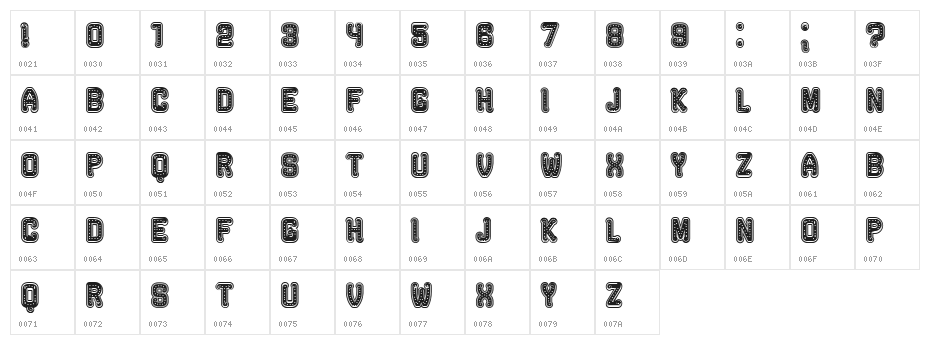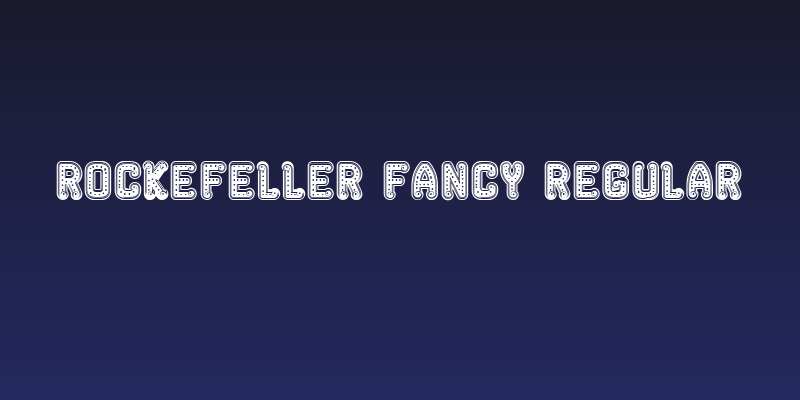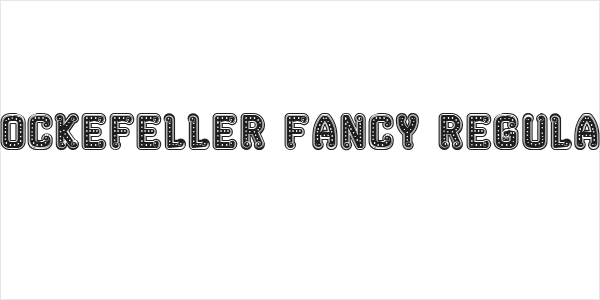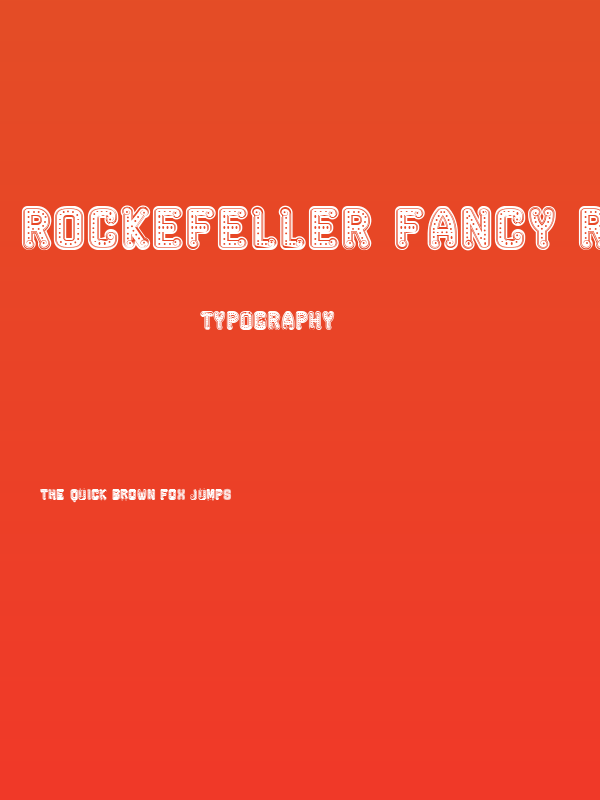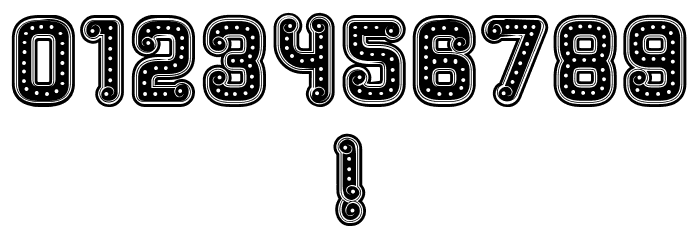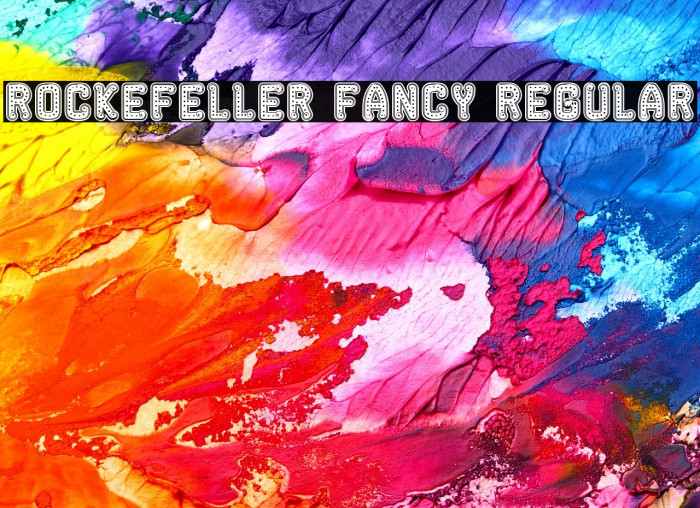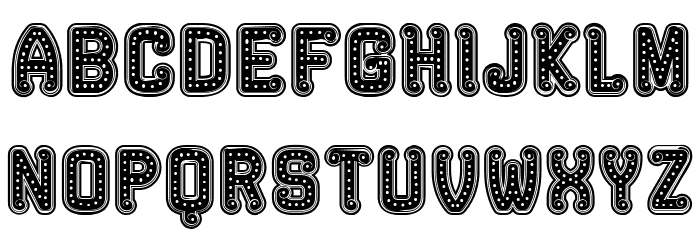
Rockefeller Fancy Regular Font
Rockefeller Fancy Regular Description
This font features a bold, decorative style with intricate detailing inside each character. The letters are outlined with a thick border and filled with a series of dots, creating a playful and eye-catching effect. The uppercase and lowercase letters maintain a consistent design, ensuring uniformity across the typeface. The numbers and special characters follow the same decorative pattern, making them stand out. This font is ideal for projects that require a touch of whimsy and creativity, offering a unique visual appeal that captures attention.
| Proposed Projects | Ideal for posters, signage, event invitations, and branding materials that require a playful and eye-catching design. |